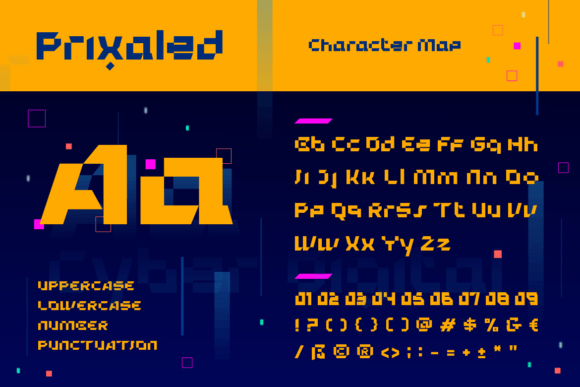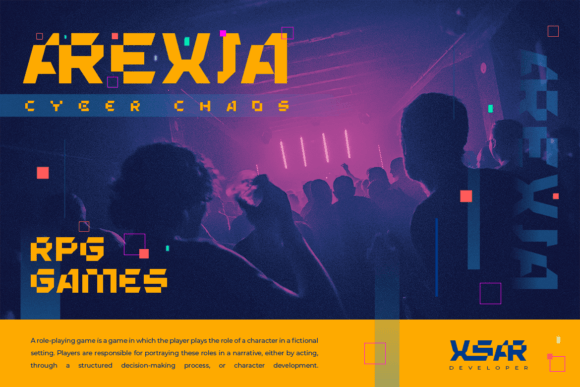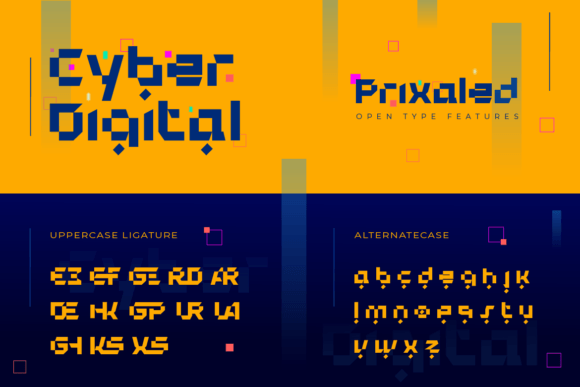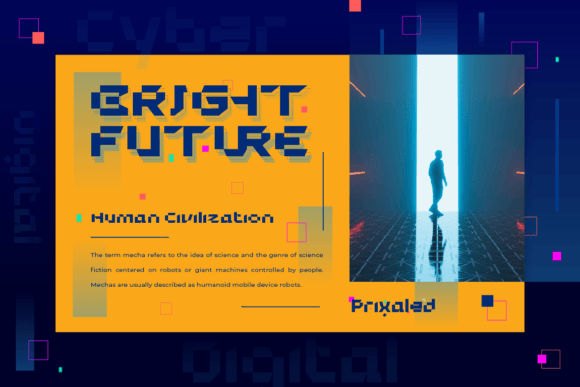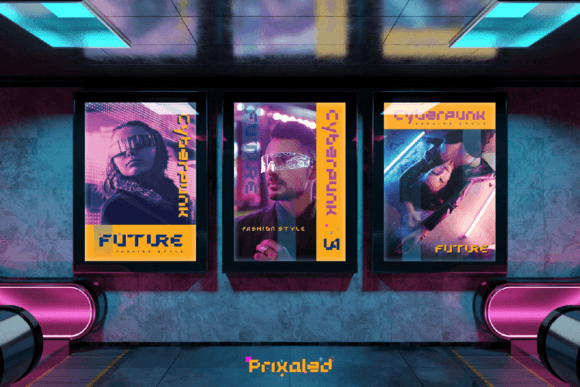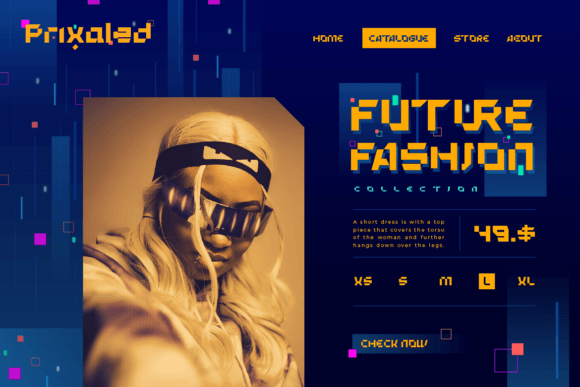
Introduction to Prixaled Font
Introducing Prixaled display font to make your typography design more futuristic.
This font is perfect for logo designs, social media, movie titles, book titles, short text, or even long text letters It complements a secondary script, sans, or serif font.
Key Features of Prixaled Font